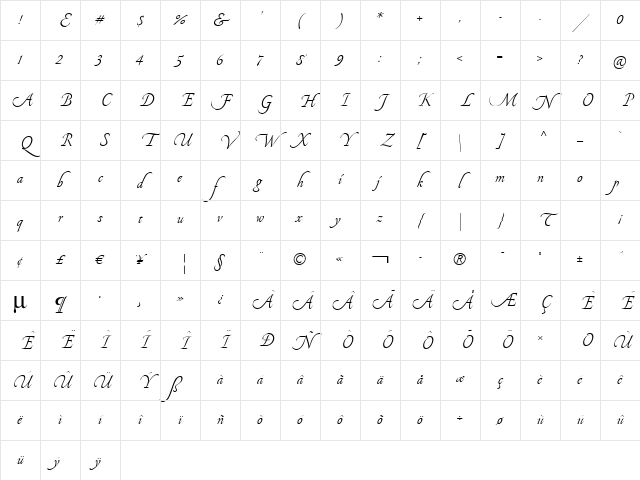
Complete Pirouette LT Std Separate 1 Regular glyph index. Displaying only characters natively supported by Pirouette LT Std Separate 1 Regular font.
Pirouette LT Std Separate 1 is a composed and adaptable typeface that performs quietly and consistently across a wide range of design contexts. Its slender proportions lend an understated elegance to any composition.